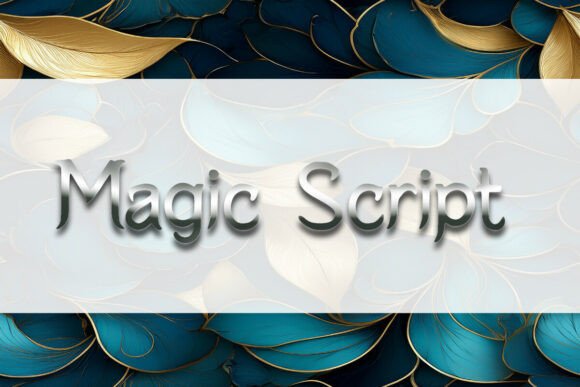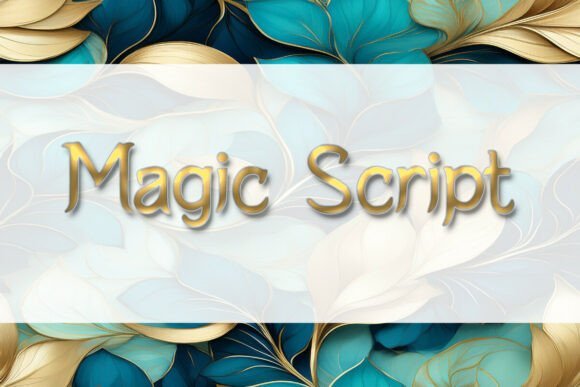
Introduction to Magic Script Font
Introducing the mesmerizing Magic Script font.
Perfectly suited for an array of creative ventures, this font effortlessly enhances the appeal of your t-shirts, stickers, and bespoke branding Its versatile fluidity makes it the go-to choice for designing impressive magazine spreads, SVG files, heartfelt greeting cards, or innovative Cricut projects.
Key Features of Magic Script Font
Why Choose Magic Script Font?
Magic Script Font offers exceptional quality and versatility, making it a valuable addition to your design toolkit. Whether you’re creating for personal projects or commercial use, Magic Script Font delivers professional results.